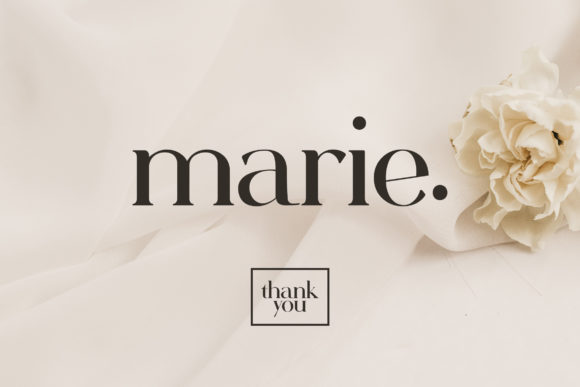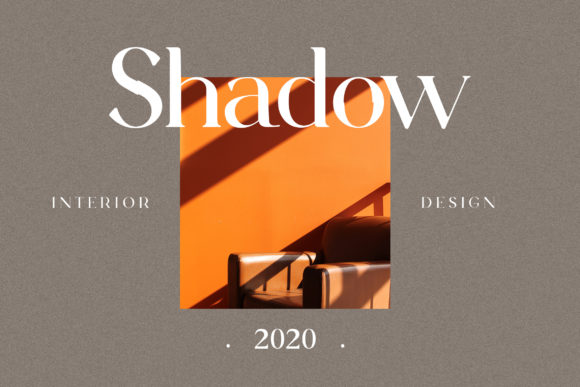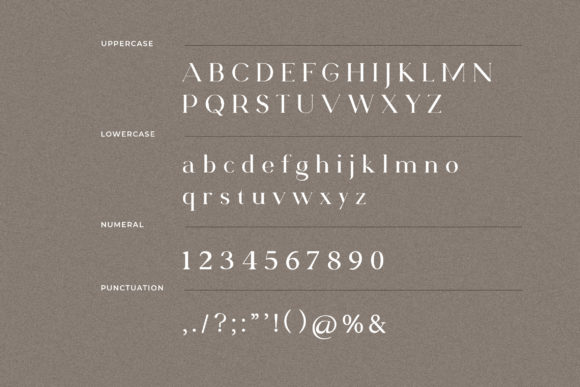
Introduction to Saxvon Font
Imagine you’re brainstorming ideas for a logo design project and you stumble upon the perfect inspiration – a sleek, elegant font that screams sophistication. You can almost envision the entire design coming together, from the bold headings to the delicate details. This is where the Saxvon Font comes into play, offering a versatile and high-quality design resource that can elevate your creative project to new heights.
For designers, having access to a reliable and versatile font like Saxvon Font is invaluable. Not only does it provide a wide range of applications, from logos to signage, but it also ensures a consistent and professional look across various mediums. And the best part? You can download it for free, making it an accessible resource for designers of all levels.
Key Features of Saxvon Font
- Unique, hand-drawn style with a transparent background, perfect for overlaying on images or graphics.
- Includes a range of glyphs and characters, making it suitable for a variety of creative applications.
- Designed with a modern aesthetic, Saxvon Font is ideal for use in digital and print projects.
- Available in a single weight, making it easy to incorporate into designs without worrying about font pairing.
Honest Review: Saxvon Font
As a designer, I’m always on the lookout for high-quality design resources to elevate my creative projects. The Saxvon Font caught my eye with its sleek and modern aesthetic, making it a great addition to my design arsenal.
What works well with the Saxvon Font is its versatility. It’s perfect for a variety of design projects, from branding and logos to digital interfaces and marketing materials. The font’s clean lines and elegant feel make it a great choice for creating a professional and sophisticated look.
- ✨ Clean and modern aesthetic
- ✨ Versatile and suitable for various design projects
- ✨ Transparent background for easy editing
However, I do have a few minor complaints. The font’s limited character set can be a limitation for designers who need a more extensive range of characters. Additionally, the font may not be suitable for projects that require a bold or dramatic look.
- ⚠️ Limited character set
- ⚠️ May not be suitable for bold or dramatic designs
Overall, I’m impressed with the Saxvon Font’s high quality and ease of use. While it may have some limitations, it’s a great resource for designers who want to create professional and modern designs.
The Saxvon Font is a high-quality design resource perfect for any creative project. With its sleek and modern design, it’s ideal for making a statement in your next project.
The Saxvon Font is perfect for various design projects, including logos, business cards, brochures, and social media graphics. Its modern design and high-quality font make it ideal for any creative project.